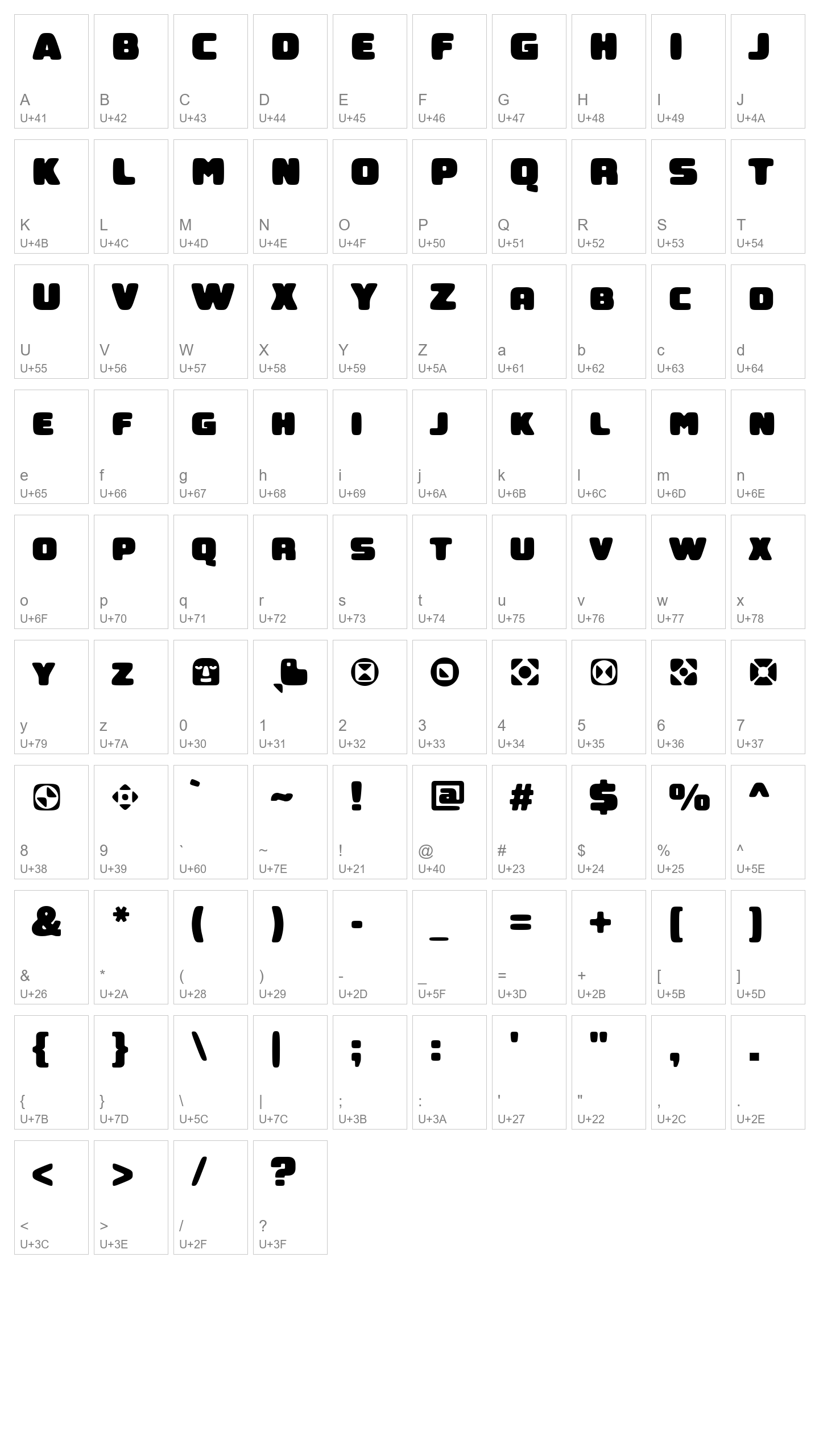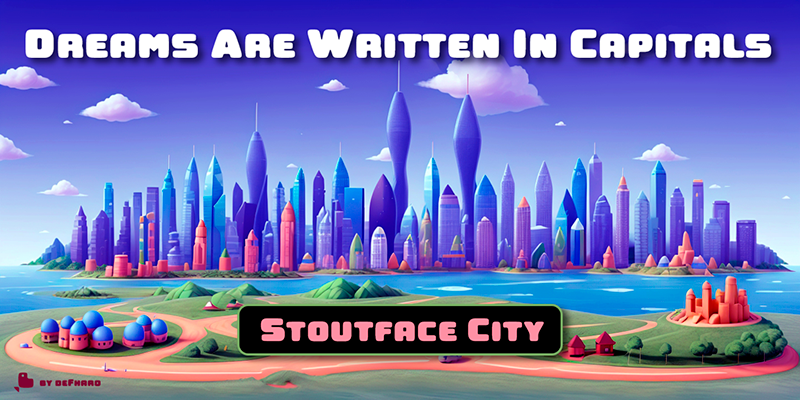
Stoutface SC
Stoutface Small Caps is a very thick sans serif typeface, combining the best of modern design and the feel of times gone by. Its thick, somewhat unfocused style gives text a rounded, worn appearance, ideal for capturing attention.
Its rounded shapes, the result of exceptional thickness and subtle wear, are perfect for large titles and any text that needs to stand out, thanks to its precise adjustment of spacing and shapes that guarantee clarity and ease of reading. Additionally, they offer many customization options, including variants of letters, numbers, and monetary symbols.